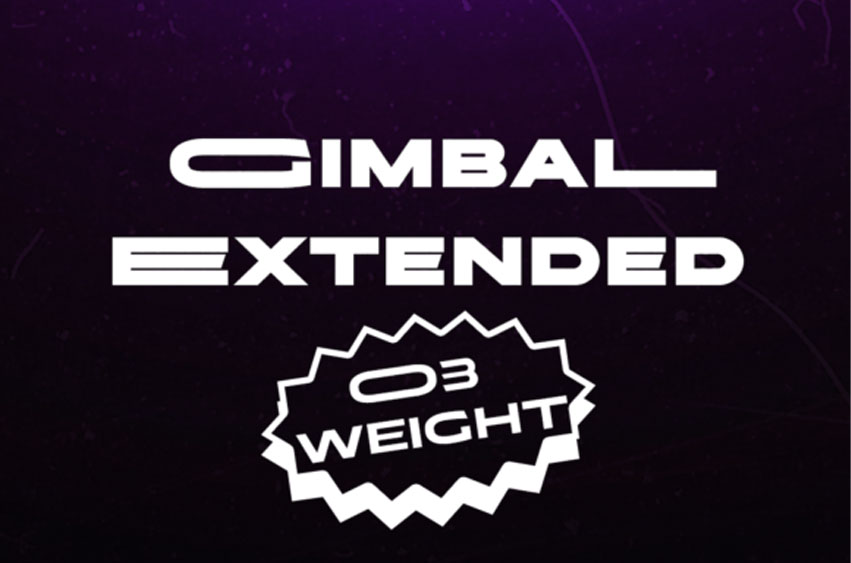
Gimbal Extended Font is a cool and fun display font.
Simple but with a strong visual effect, this font will instantly make your creation more appealing than any others.